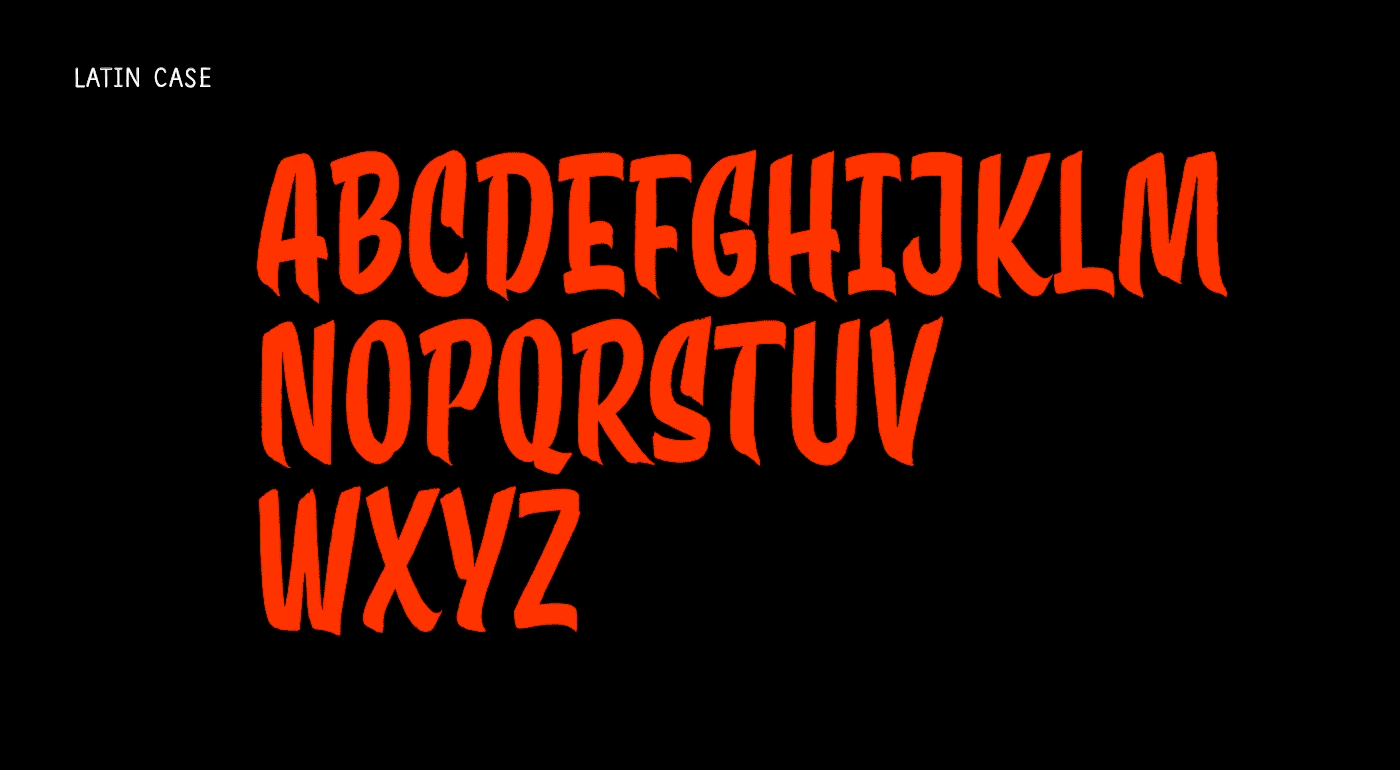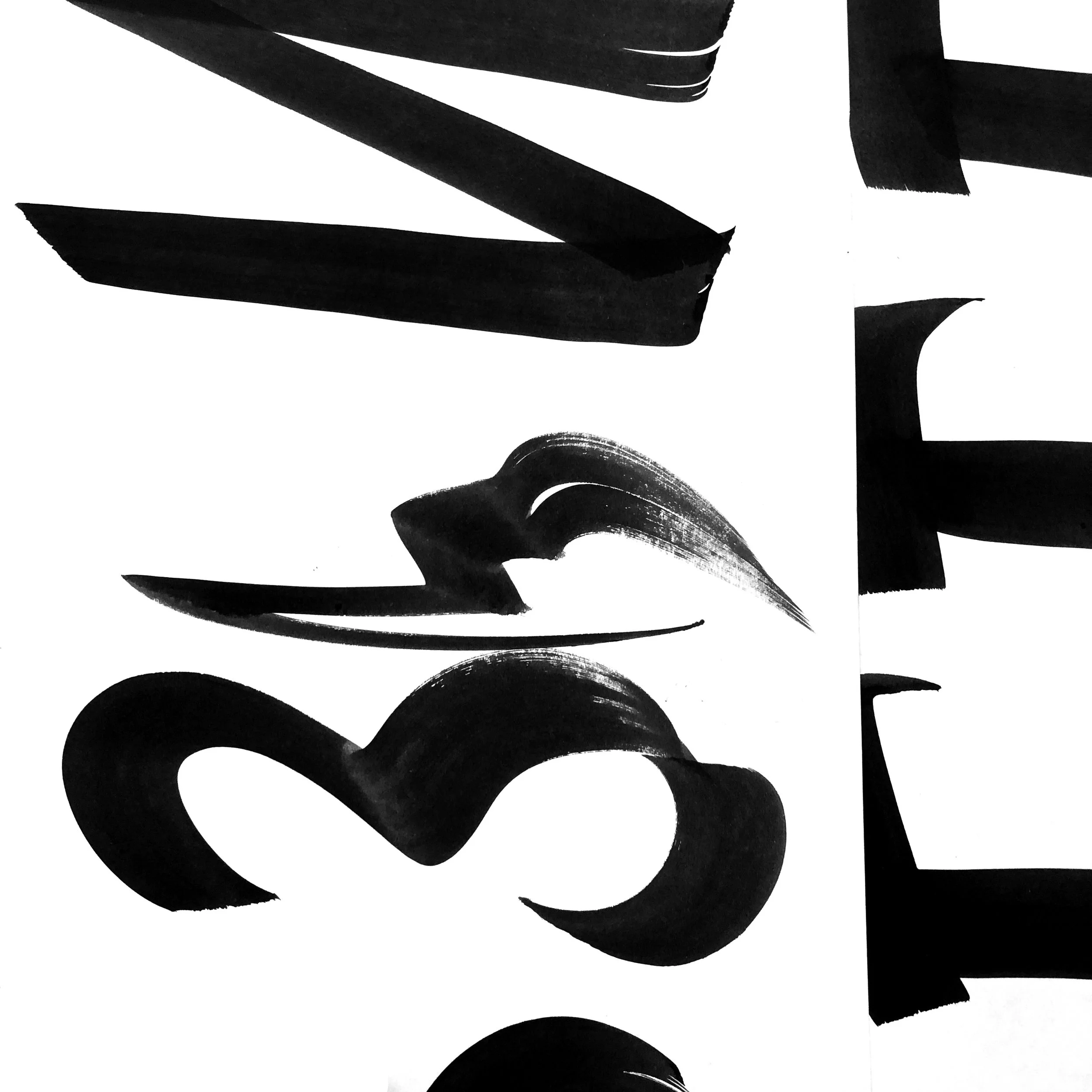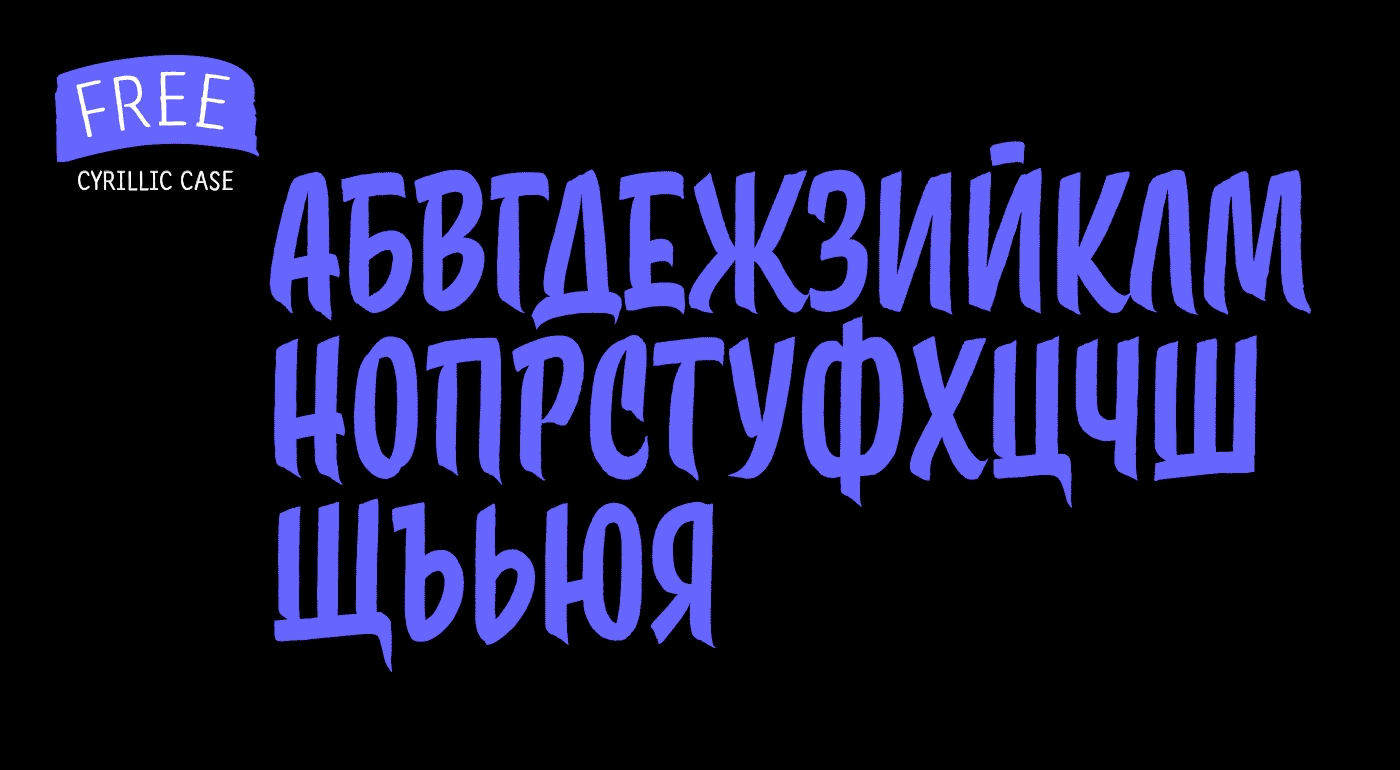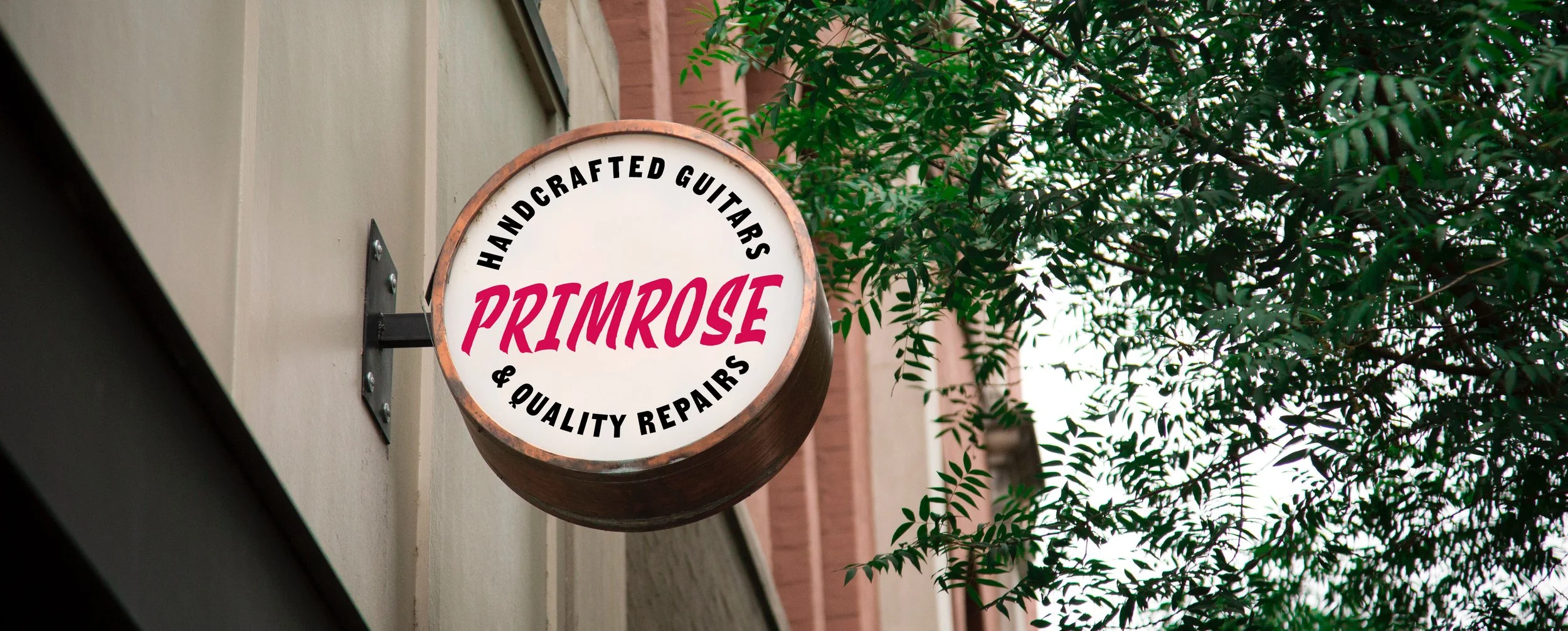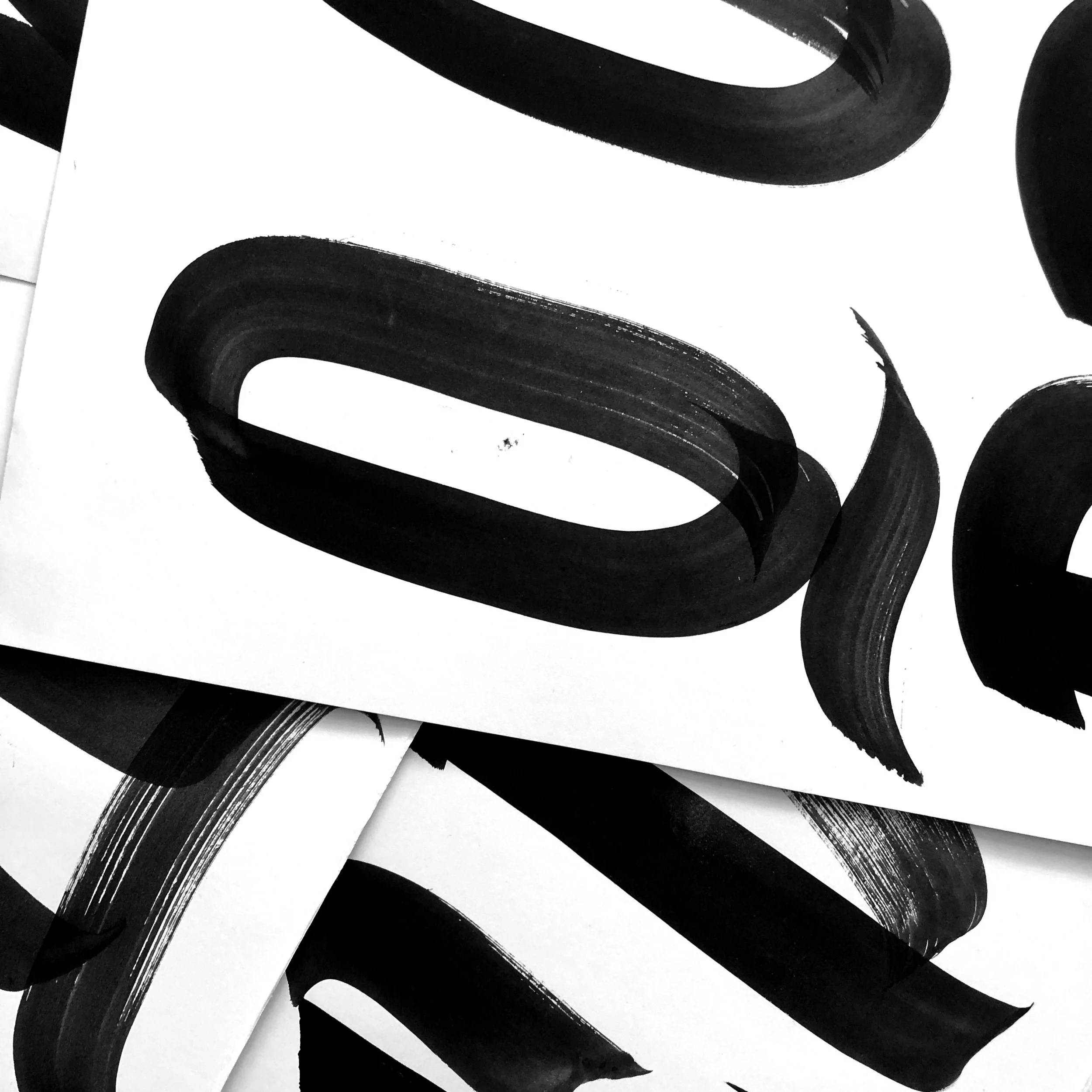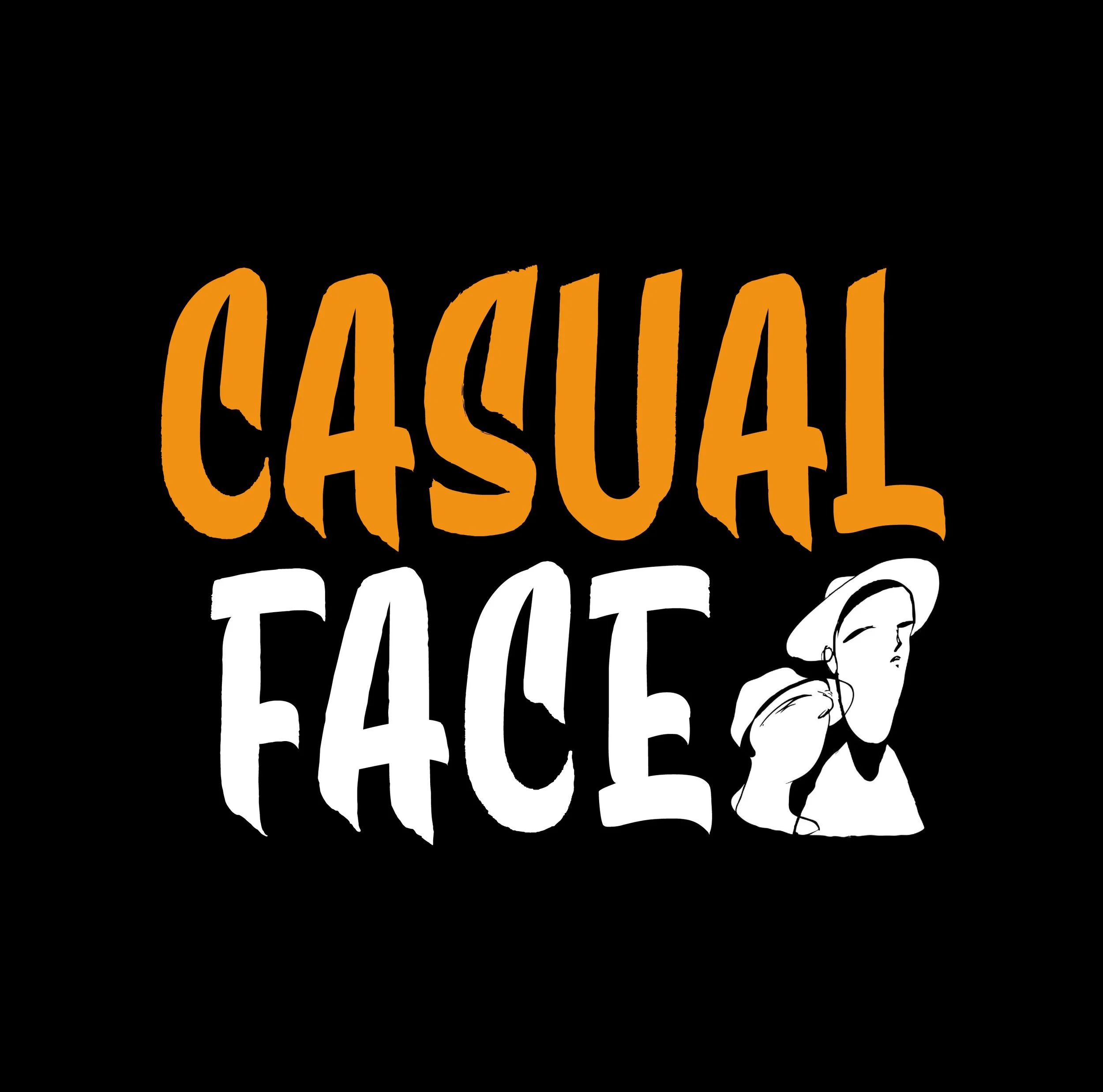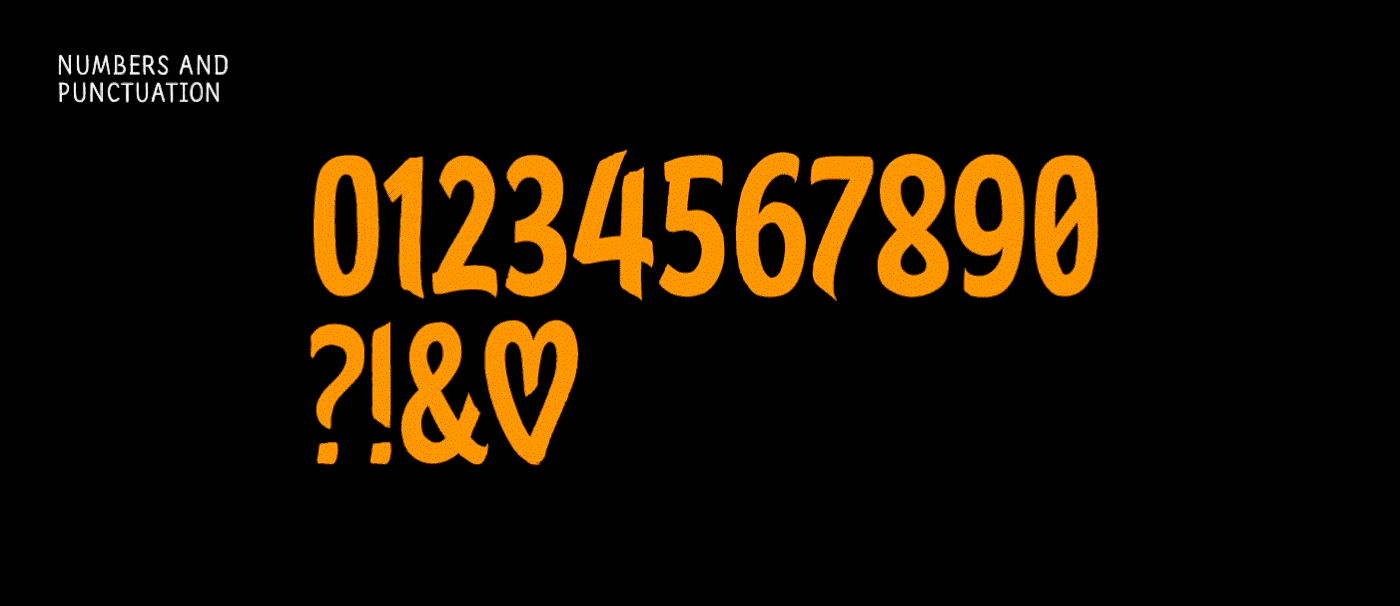
No pressure
Jacky has always wanted to create a casual handwritten font which contains Cyrillic alongside Latin. Now that the time has finally come to design one it even comes with two masters so you can control the slant angle on the go. A variable casual – how cool is that?
Intended to use in large sizes and is perfect for when in need of a classic laid-back headline with a relaxed and warm feeling.
In case this typeface spikes your interest we might even develop a lowercase to match the caps, why not.
The current version supports all basic Latin and Cyrillic uppercase characters, as well as numerals, and the essential set of punctuation and symbols.